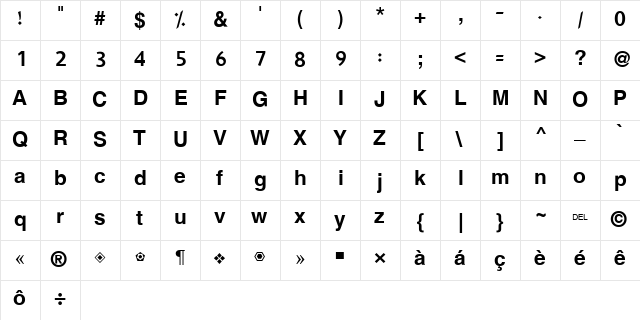
Hacen Liner Screen Bd Regular
| Foundry | Muhammad Hacen |
| Designer | Muhammad Hacen |
Design Context for Hacen Liner Screen Bd Typeface
Hacen Liner Screen Bd offers clean, dependable letterforms without strong stylistic allegiance, making it a practical choice for designers who need flexibility. The heavy weight commands attention and anchors typographic hierarchies.